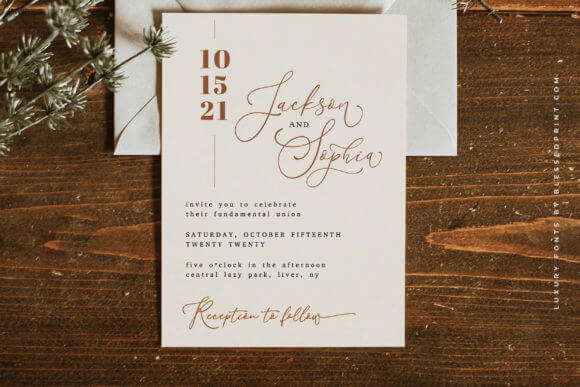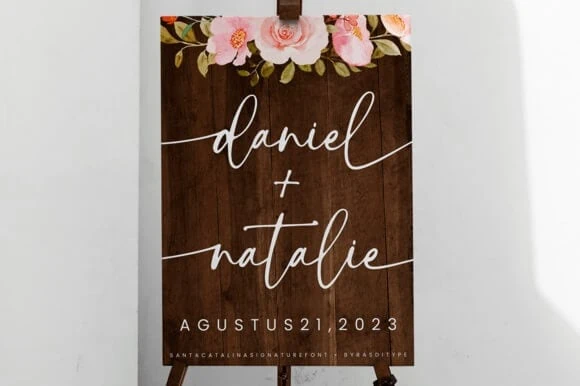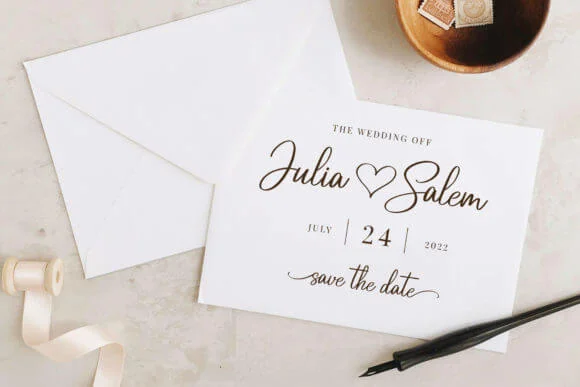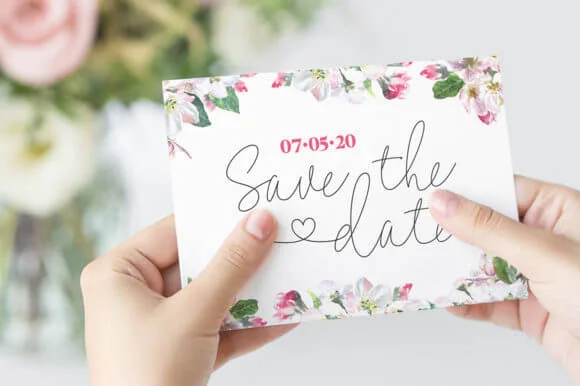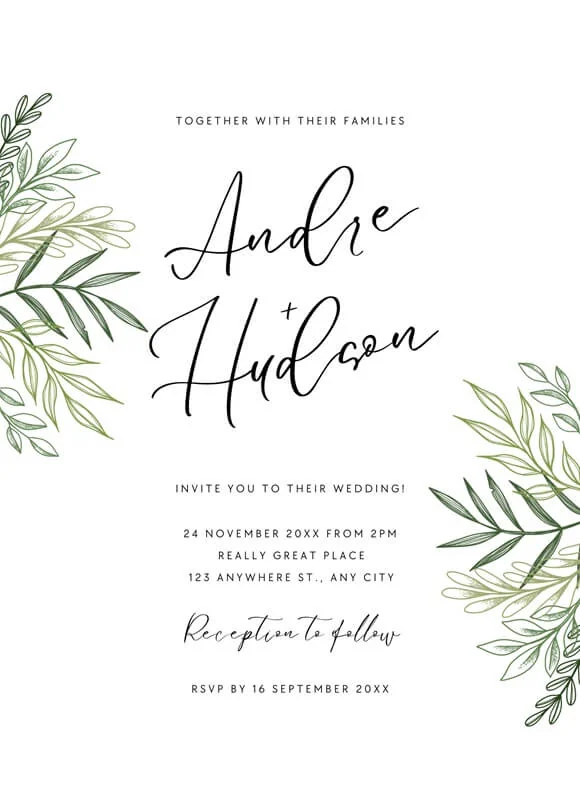
The secret to planning a dream wedding is all in the details, right down to the fonts you use. Wedding invitation fonts help set the tone for the entire event and give guests a glimpse of the unique style and atmosphere they can expect.
With so many beautiful fonts available, it can be hard to narrow down your options and decide on the perfect choice for you.
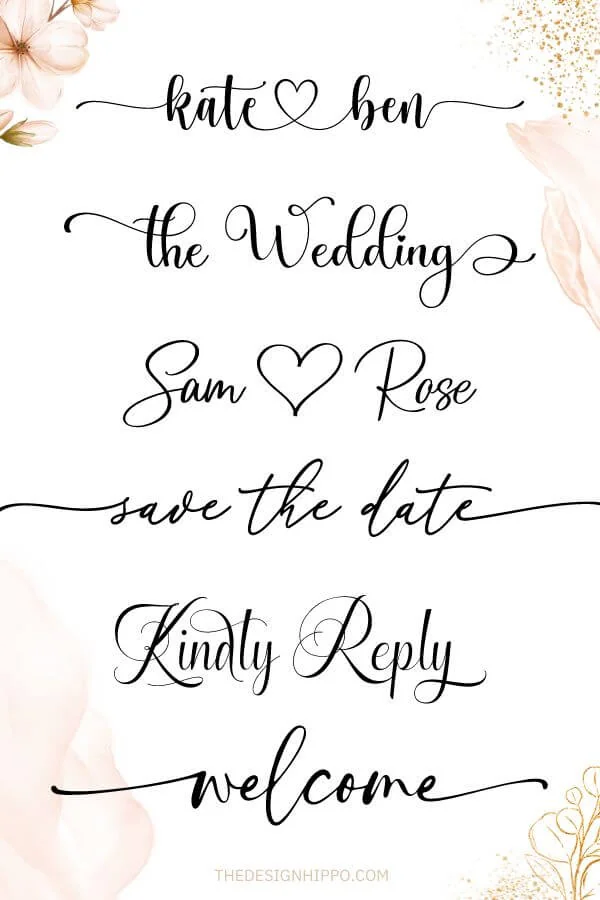
Best Wedding Fonts – Our Top Picks
- Best Overall – Hello Honey
- Most Popular – Maddison
- Best for Invitations – Little Love
- Best for Signs – Santa Catalina
- Best for Cricut – Randy Sofia
- Best Script – Enchanting
- Best for Envelopes – Jupiter and Mars
- Best for Labels – Aerotis
- Best Cursive – Amalisa
- Best for Save the Dates – Lovers
- Best Font Combination – Abiding Love
- Best Canva – Le Jour Script
How to Choose the Perfect Wedding Font
Finding the right wedding font can feel overwhelming. Here are the key factors to keep in mind while choosing a font:
1. Consider your Wedding Theme: Matching your font choices to your wedding style is the first step to picking the perfect font for your wedding. Elegant fonts like calligraphy or script fonts are traditionally used for formal weddings, while organic brush calligraphy fonts are more suitable for casual weddings.
2. Think about Legibility: When choosing fonts, keep in mind how easy they will be to read. An elegant serif or sans-serif font is ideal for designs with a lot of text (like invitations or dinner menus), while script and calligraphy fonts are best used as title fonts on invitations and signage.
Tip: If you find a script that you love but is a little too difficult to read, try widening the letter spacing (or kerning) of the font to make the text easier to read.
3. Ensure Compatibility with Design Software: Remember to make sure that the font you choose is compatible with the design software you plan on using to design your wedding materials. Some fonts have glyphs or special characters that need software, such as Adobe Illustrator. Alternatively, use a free online tool like Fontcloud. You can check the compatibility of your fonts by reading the font description and checking the font file type before downloading.
Tips for Pairing Wedding Fonts
Different font combinations convey different styles, from traditional to modern. They also help highlight and draw attention to important details such as the coupleโs name, date, and venue.
Check out these tips to create the perfect wedding font pairing for your special day.
Tip #1: Create contrast
When pairing wedding fonts, it’s important to choose fonts that contrast each other. This will ensure your design is easy to read and stands out, balancing style with clarity.
To help with this, try to think of opposites: A very fancy script font should be paired with a plain sans-serif or serif font to balance out the script.
Tip #2: Limit your selection
It’s also important to limit your selection when choosing fonts to pair. Limit yourself to using 2-3 fonts and decide what the fonts will be used for.
For example, if you pair a calligraphy font with a serif font, it’s best to use only the calligraphy font for titles, like your name, and the serif font for the rest of the text.
Tip #3: Pick complementary styles
Choosing font styles that complement each other will ensure you end up with a beautiful wedding font pairing. The easiest way to do this is to consider font families. You can use different weights and styles within the same font family or across different families.
For example, you may choose to pair a regular style of the font with an italic or bold style of the same font.
Best Wedding Fonts
As designers ourselves, we love a good DIY wedding project. Over the years, weโve gained a true understanding of what makes a good wedding font and (just as importantly) what fonts brides love.
These favorite fonts have been used to create countless gorgeous wedding designs, and we know youโll fall in love with them, too.
Continue reading for our top wedding font picks and a few helpful tips for saying โI doโ to the font thatโs right for you.
Hello Honey
Best Wedding Font Overall
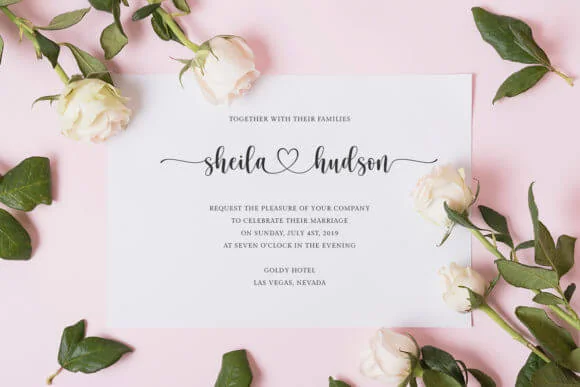
Hello Honey is a romantic handwritten font that has a truly timeless style. It has beautiful alternate characters, letter swashes, and heart swashes that are perfect for writing names and initials.
Use it to add a personal touch to everything from invitations to decorative signs.
Maddison
Most Popular Wedding Font
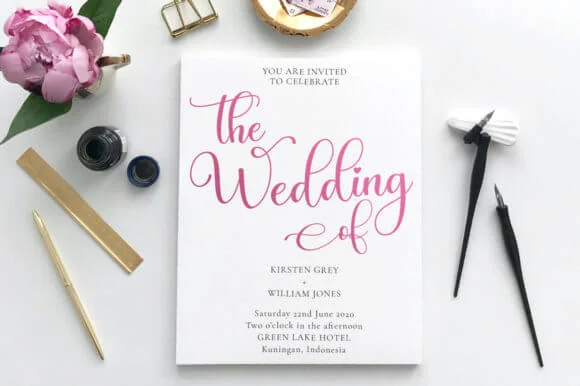
Maddison is a most popular modern calligraphy font with a dancing baseline and stunning end swashes that perfectly tie the look of the text together.
What is the best font for a modern wedding theme?
If you’re planning a modern wedding, your font choices will have a much more minimalist design compared to traditional wedding-style fonts. Traditional wedding fonts consist of calligraphy, script, and cursive fonts that are elegant and have a lot of flourishes.
Contemporary-style fonts are usually modern serif or sans-serif fonts that fit into the design elements of the overall theme. If your wedding is going to be a modern affair, consider sticking to minimalistic fonts that have a modern aesthetic.